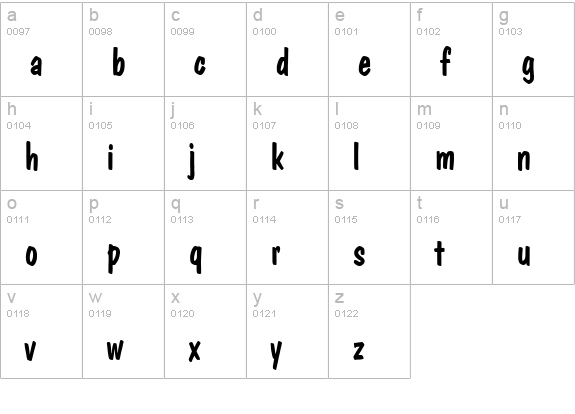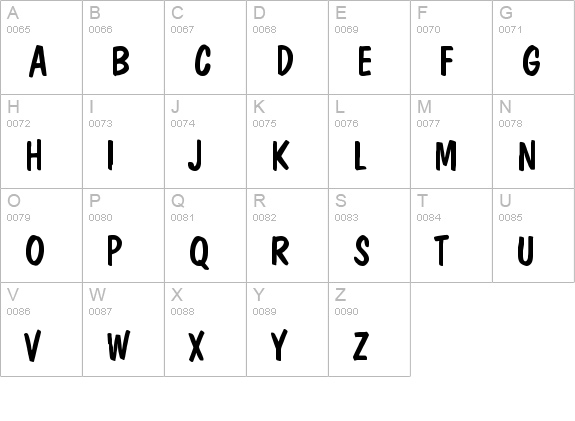
Dom Very Casual Font Details
Introducing Dom Very Casual font - a playful and stylish typeface that exudes a laid-back charm. With its relaxed and casual appearance, Dom Very Casual is perfect for adding a touch of whimsy to your designs. This font features unique letterforms that give off a friendly and approachable vibe, making it ideal for projects that require a fun and carefree aesthetic. The best part? Dom Very Casual is available for free download at FontsMarket.com. This means you can easily access this delightful font and use it in your personal or commercial projects without any cost. Whether you're creating posters, social media graphics, or branding materials, Dom Very Casual will surely add a touch of personality and creativity to your work. Don't miss out on the opportunity to enhance your designs with this charming and free-to-use font. Download Dom Very Casual today and let your creativity shine!